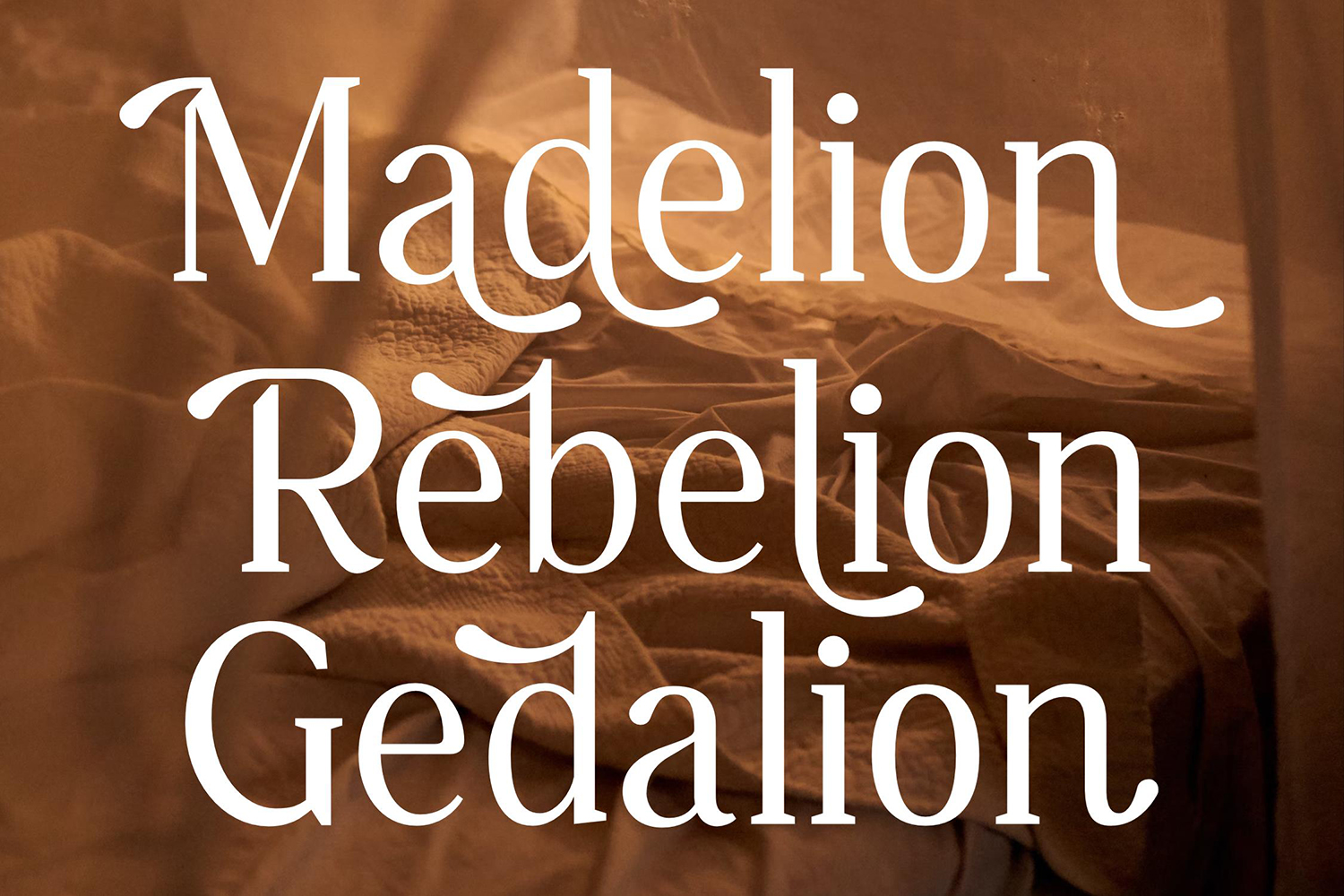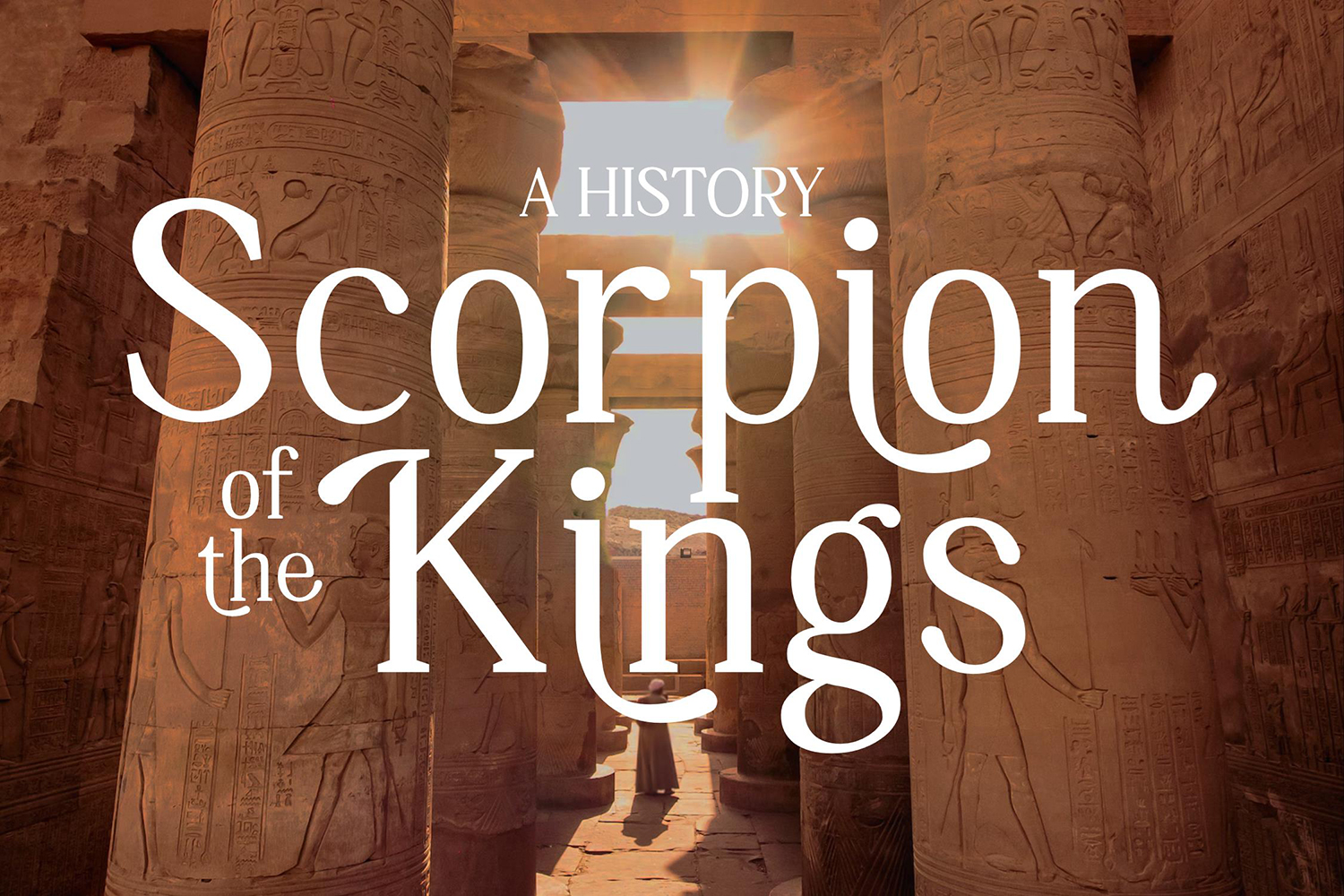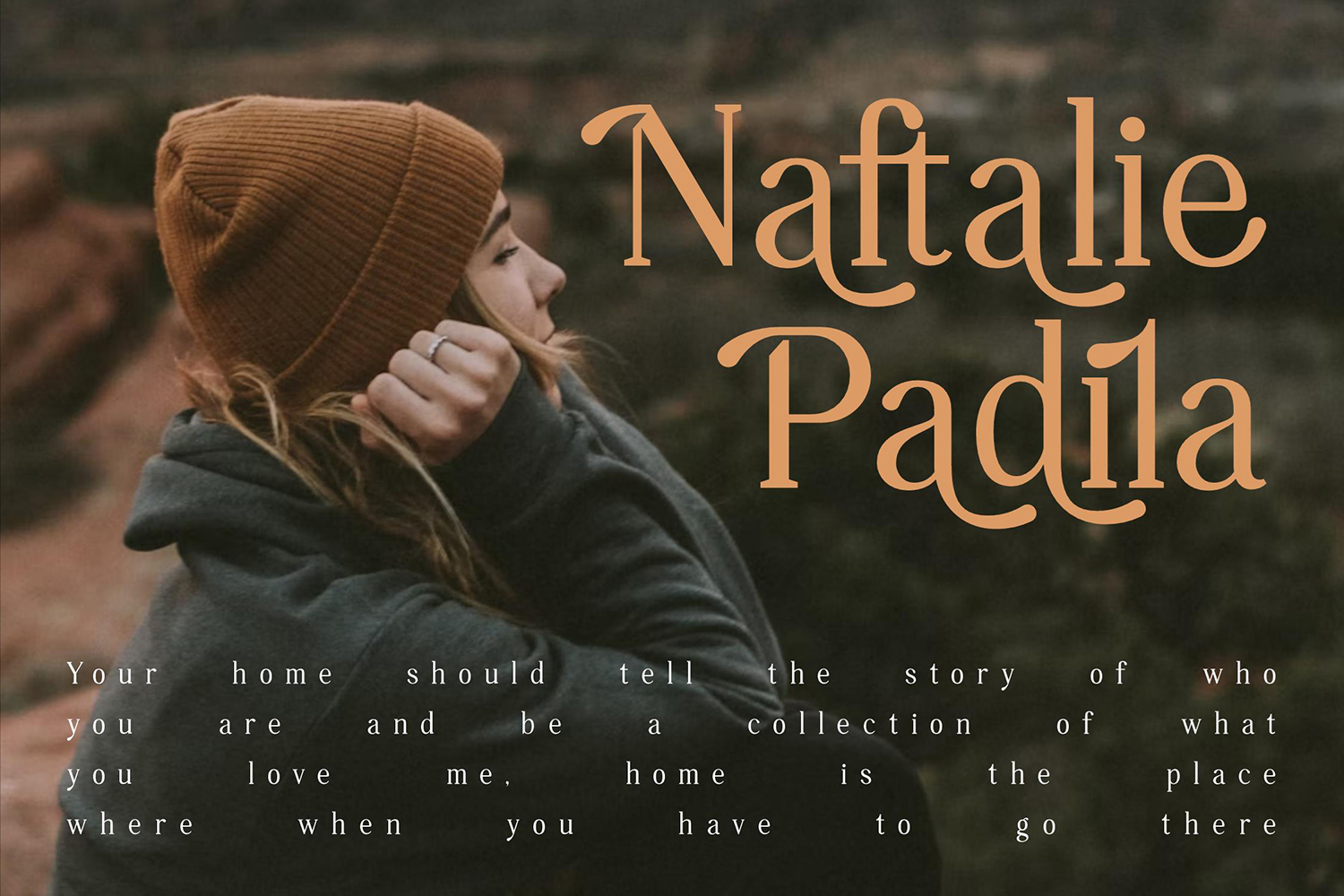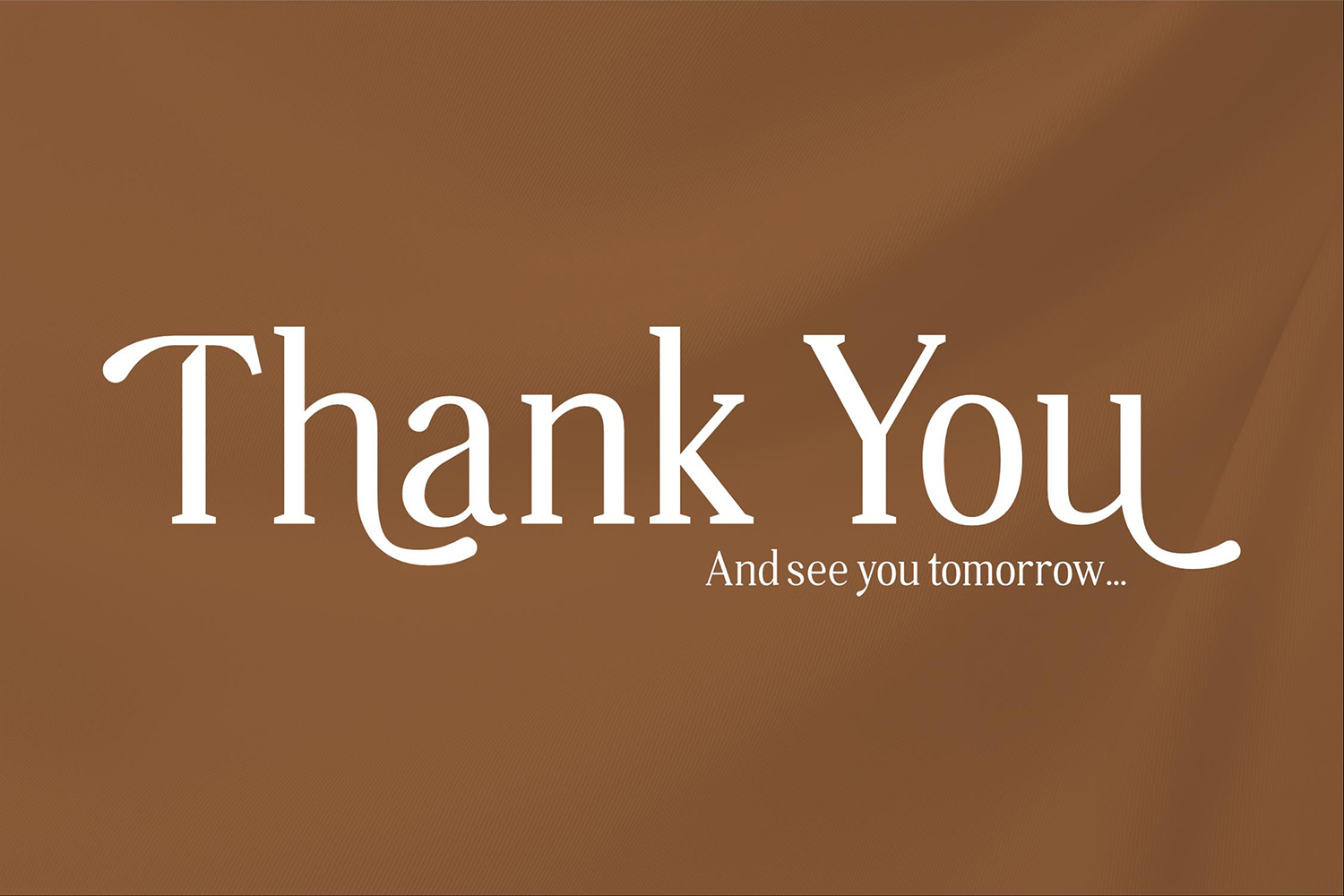
Qamilion Free Font
Qamilion Free Font is a modern serif font that is both elegant and versatile. With its clean lines and sleek design, it is perfect for a wide range of projects, from formal documents to stylish invitations. The serifs are fine and delicate, giving the font a sense of refinement and sophistication. The overall look is sleek and contemporary, making it a great choice for any design that needs a touch of class.